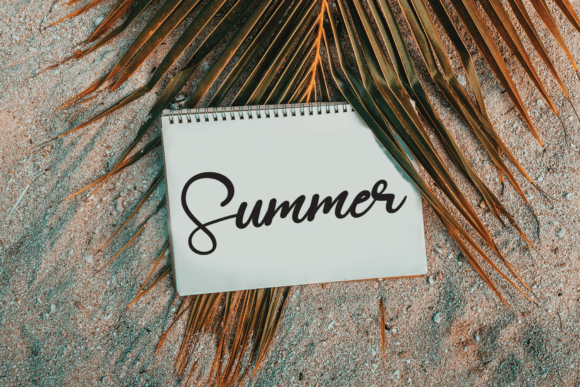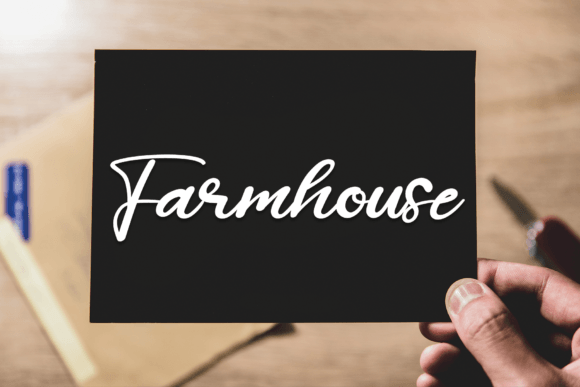
Billion Time Font
Billion Time Handwritten Font – Fun and Friendly Typeface
The Billion Time Handwritten Font is a playful and versatile script typeface designed to bring personality and charm to your creative projects. With its natural handwritten strokes and casual flow, it works perfectly for both digital and print designs. Whether you’re working on crafts, invitations, or greeting cards, this font ensures your work feels fresh and personal.
A Handwritten Script with Style
The Billion Time Handwritten Font blends smooth curves with balanced proportions, giving text an inviting and natural look. Its casual yet polished strokes make it easy to read, while its handcrafted energy adds authenticity. Because of this, it adapts well to many different design purposes.
Perfect for Crafts and Greeting Cards
One of the best uses of the Billion Time Handwritten Font is in greeting cards, invitations, and DIY crafts. Its cheerful handwritten style makes messages feel heartfelt, while its versatility allows it to shine in posters, quotes, and thank-you notes. This flexibility ensures it is useful for a wide variety of projects.
The Billion Time Handwritten Font can be used across many contexts. From product packaging and social media graphics to branding and event signage, it adds a playful handwritten charm. Its ability to balance friendliness with readability makes it perfect for both casual and professional designs.
Why Designers Love Billion Time Font
Designers appreciate the Billion Time HandwrittenFont because it combines usability with creativity. It is fun enough for personal projects, yet professional enough for branding and digital layouts. This dual nature makes it a valuable addition to any designer’s toolkit.
In summary, the Billion Time HandwrittenFont is a fun, friendly, and versatile typeface. With its natural handwritten strokes, smooth installation, and broad usability, it is perfect for greeting cards, crafts, posters, and branding. Don’t miss the chance to download Billion Time HandwrittenFont and add charm to your next design project.